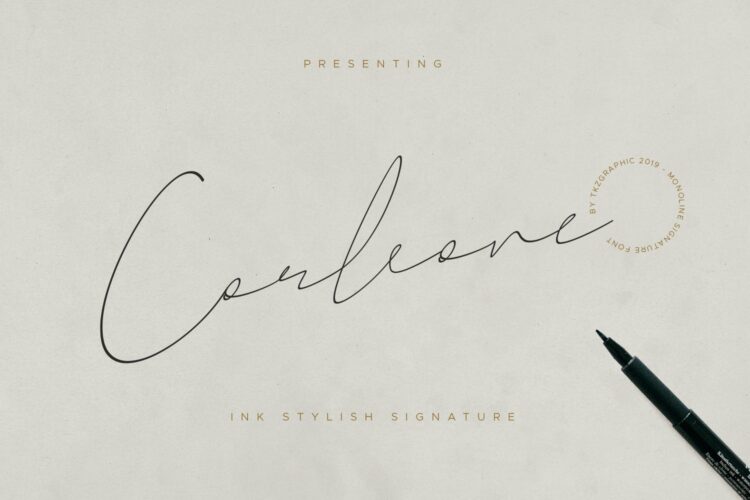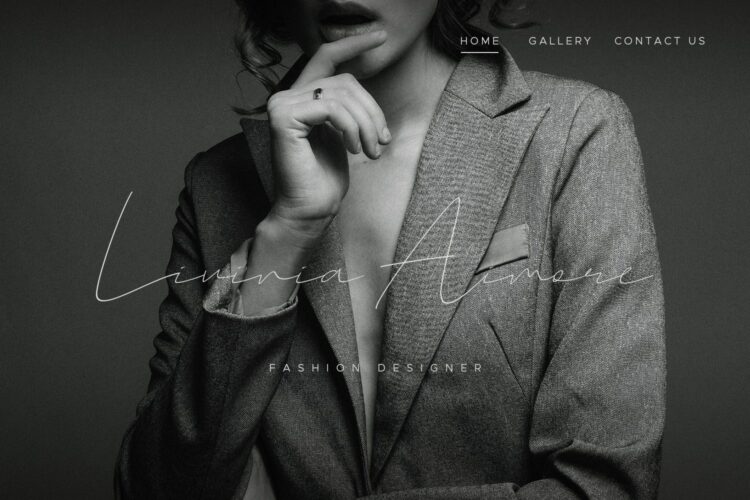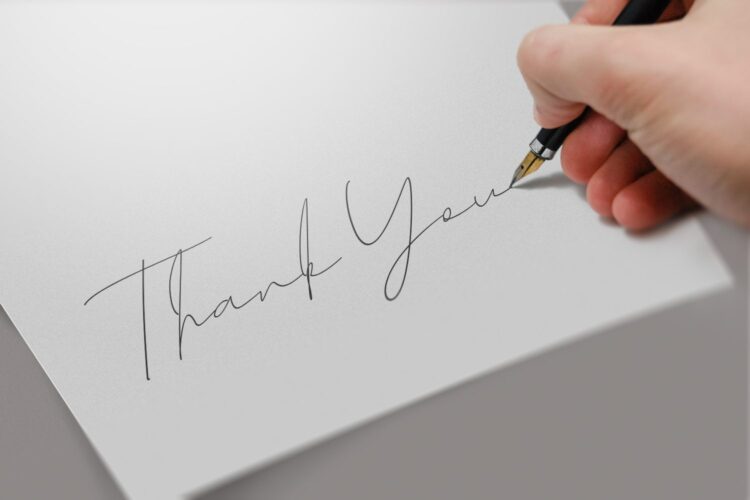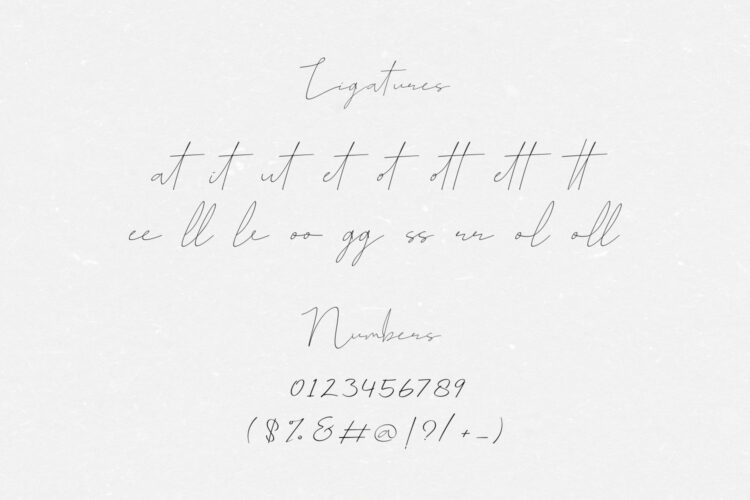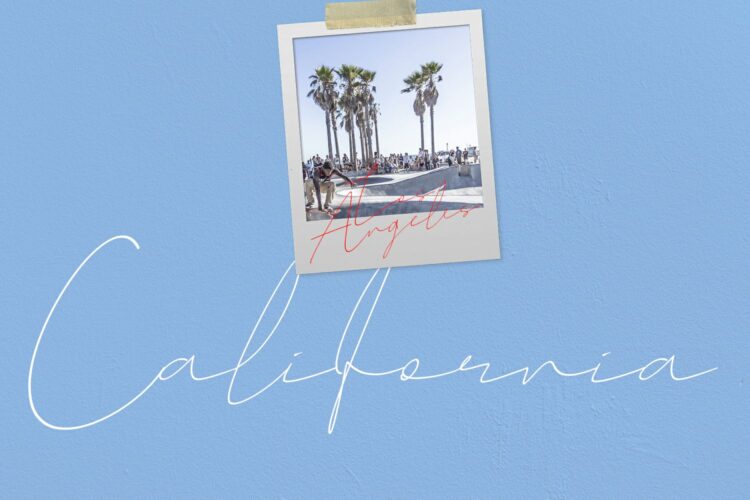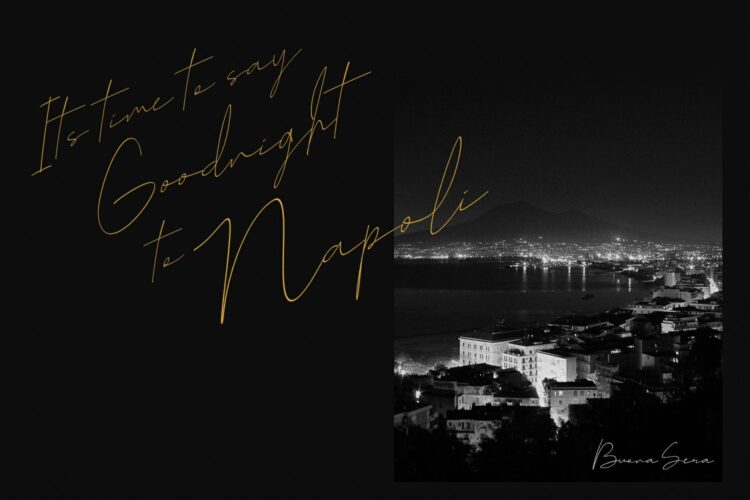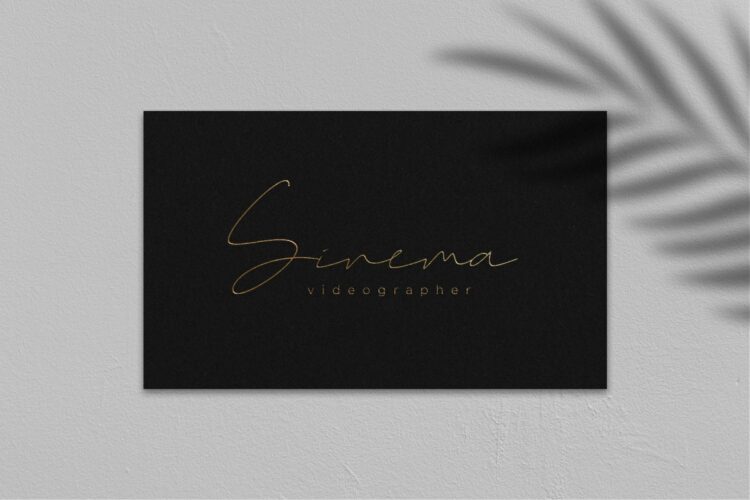
Corleone
Description
Corleone  is a handwritten signature script font with thin flowing monoline pen like curves. Featuring ligatures to make your design looks natural hand-made. It’s perfect for Logo, Book Title, Movie, Invitation or any designs you want to make look elegant & timeless!
Corleone – Signature Font